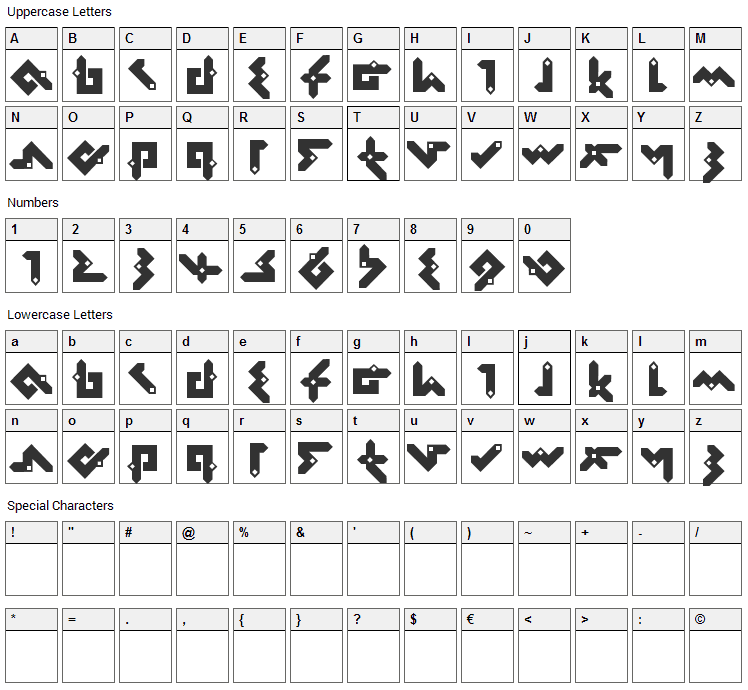
Pentomino Font
Font Name:Pentomino
Developer:Parallax
Category:Fancy > Decorative
A mod-looking font comprised of only 5 characters, rotated or flipped (but not scaled)! I think it's a record, but I'll make no official claims.